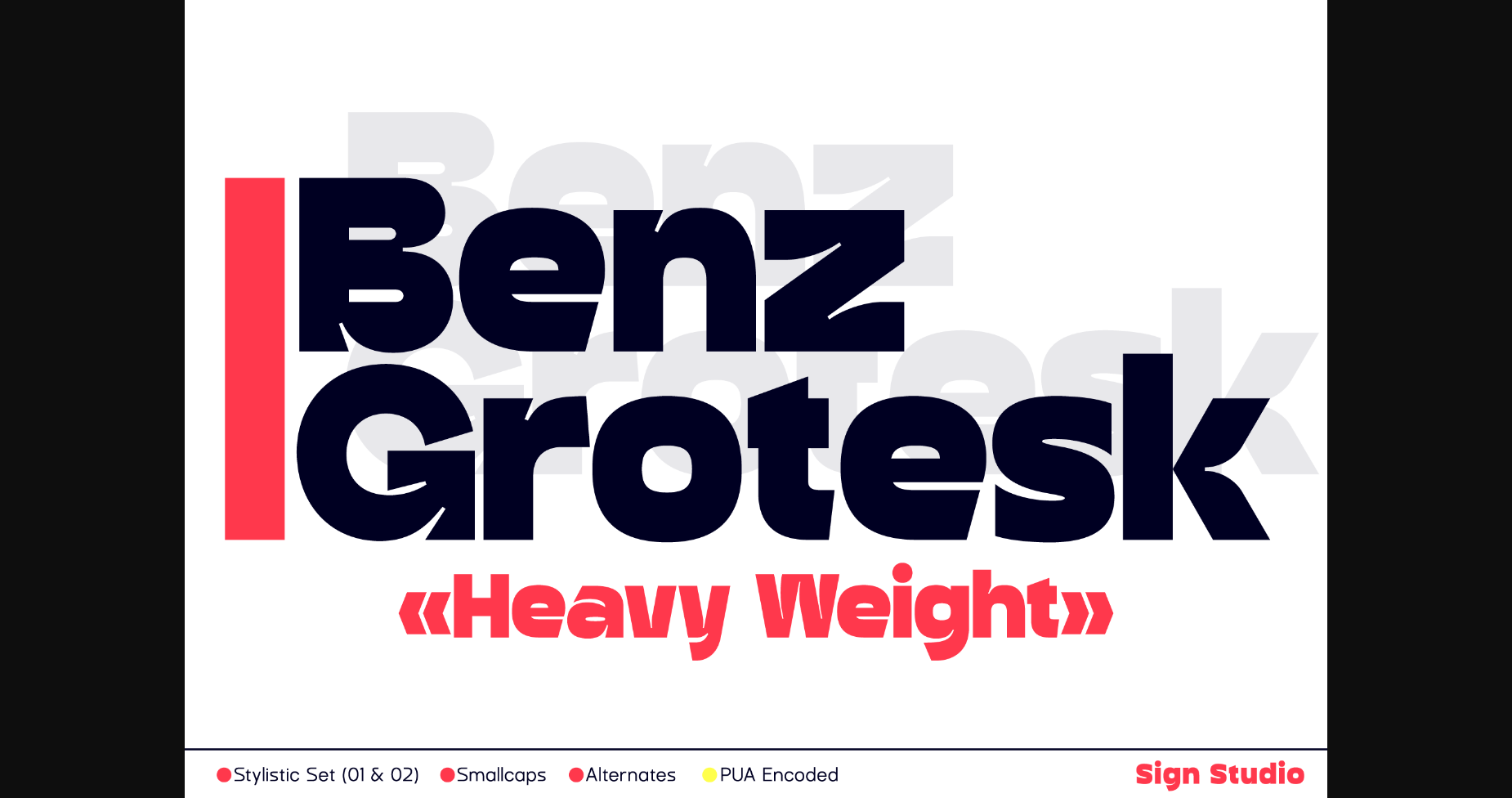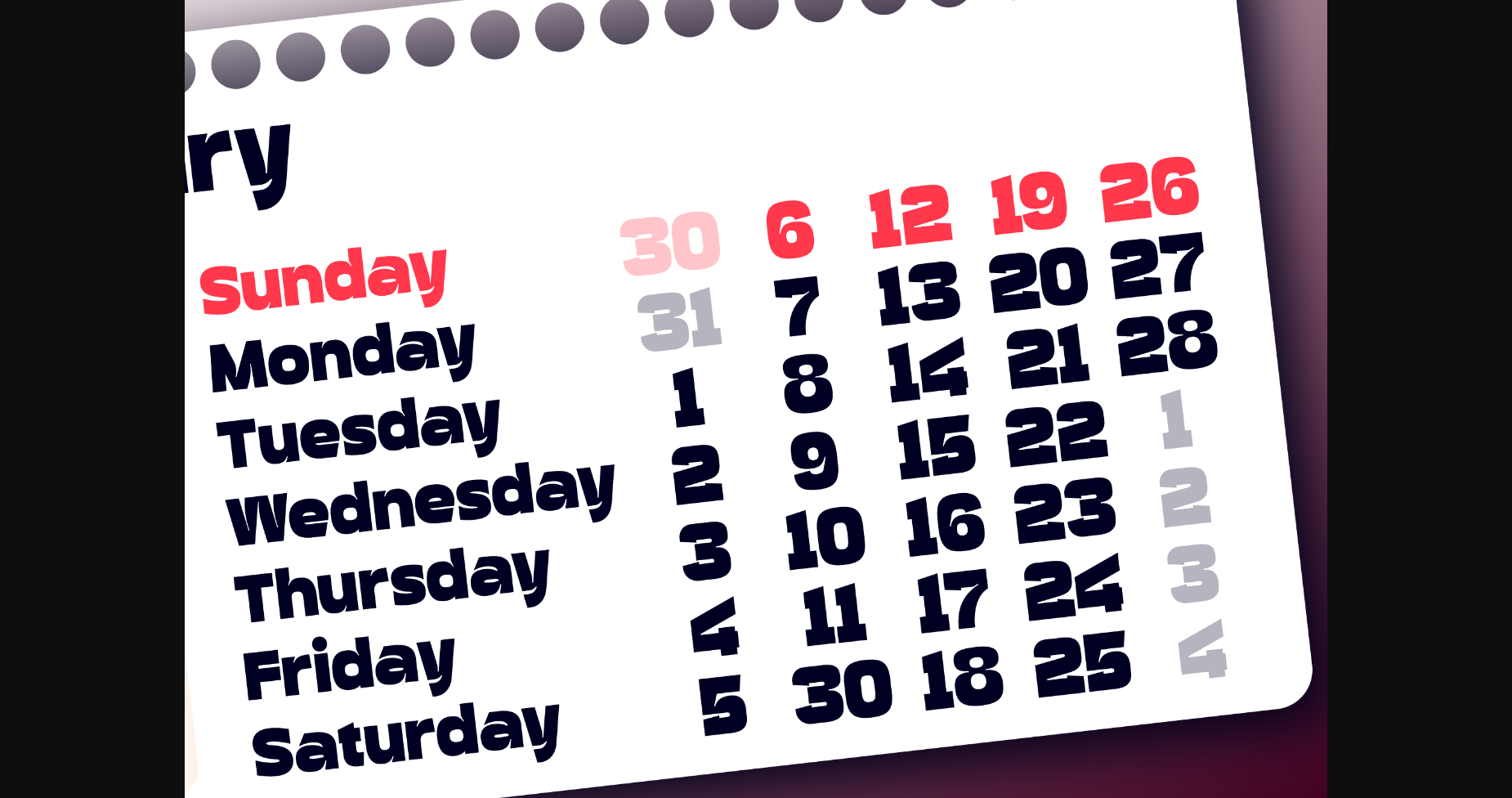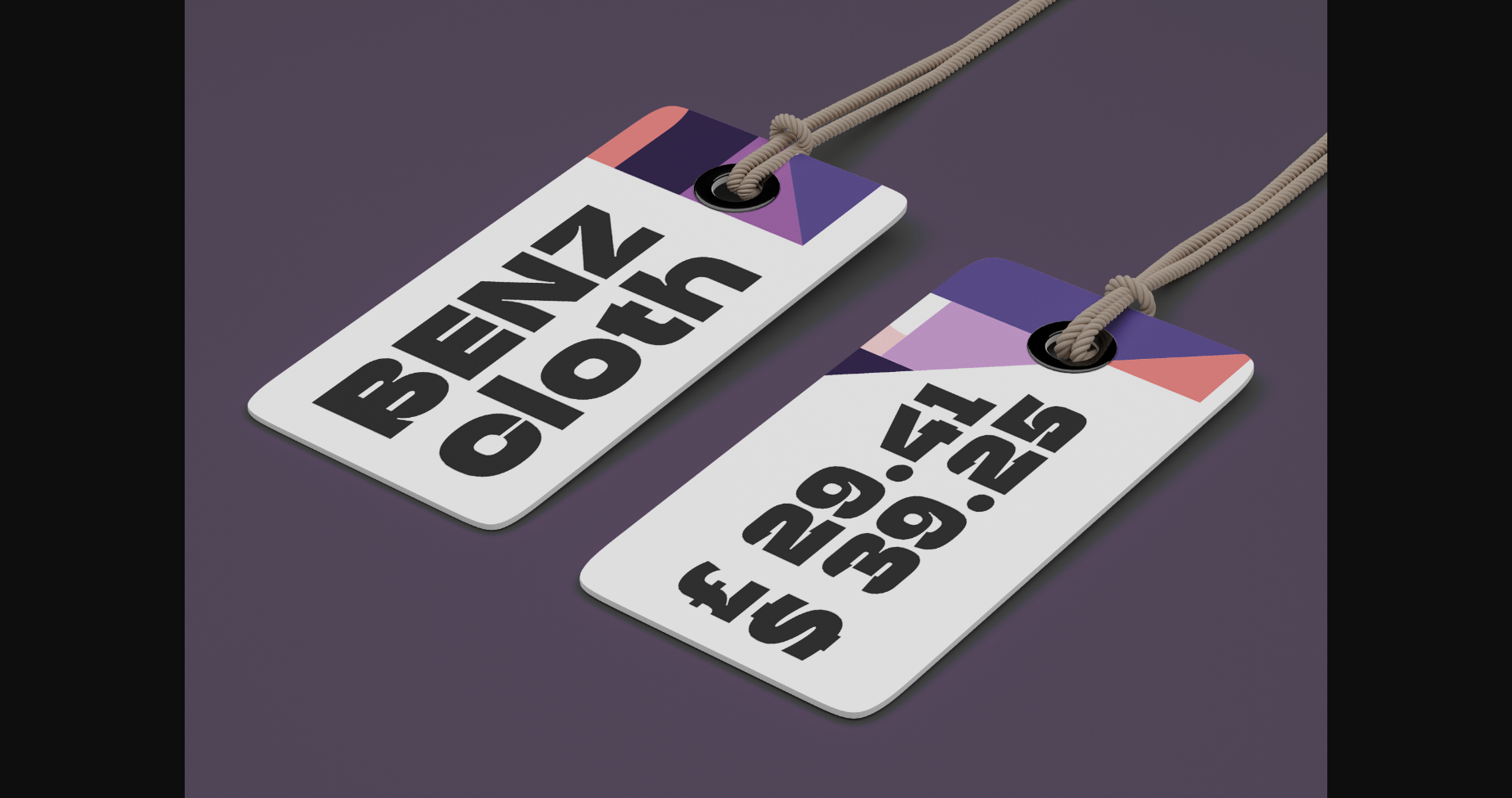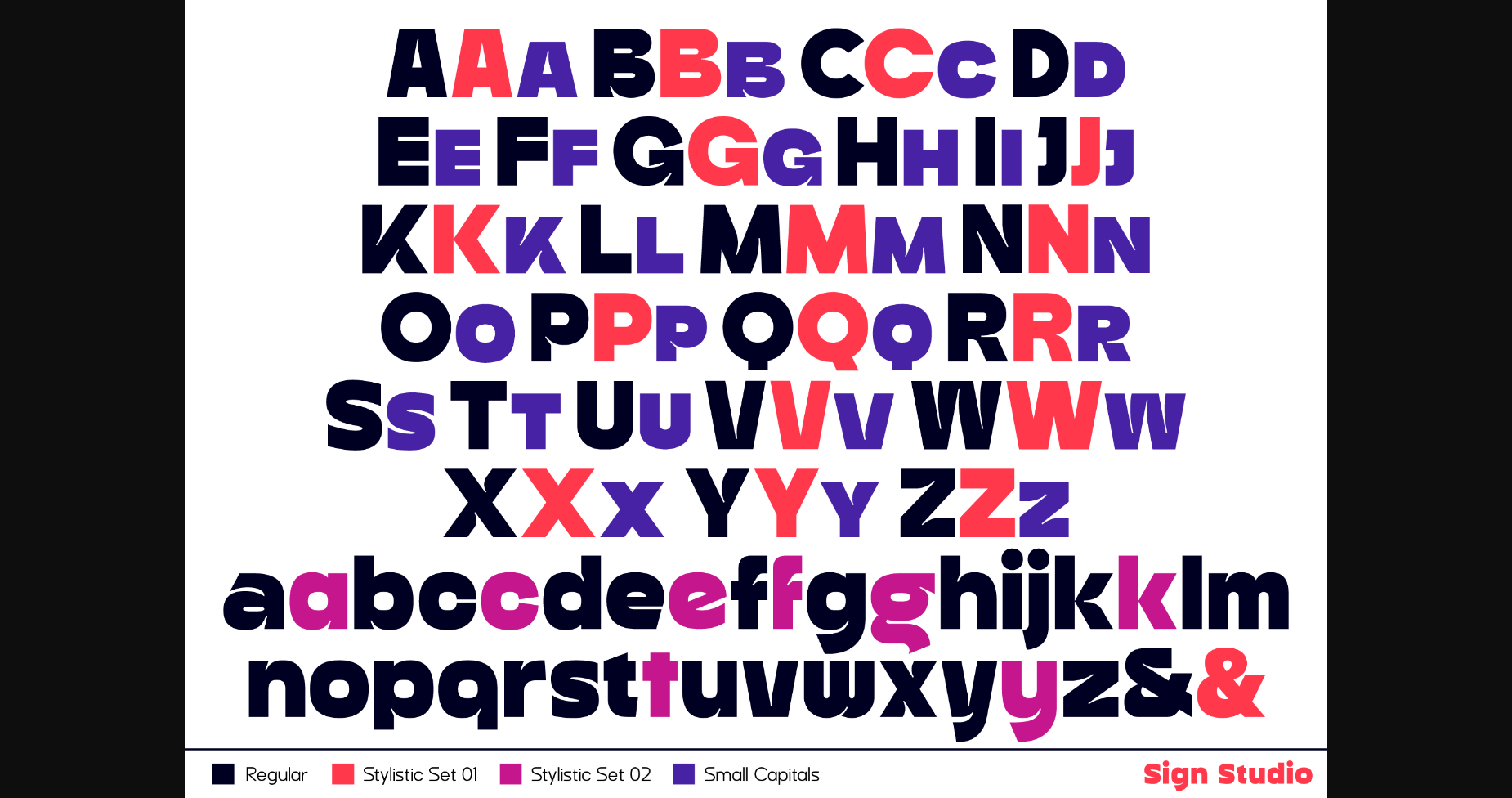
About Benz Grotesk Font
Benz Grotesk is a subtle sans serif font perfect for designing posters, headlines, product branding, logotypes, minimalist typography, and many more. Add it to any of your creative projects, and notice how they capture everyone’s attention!